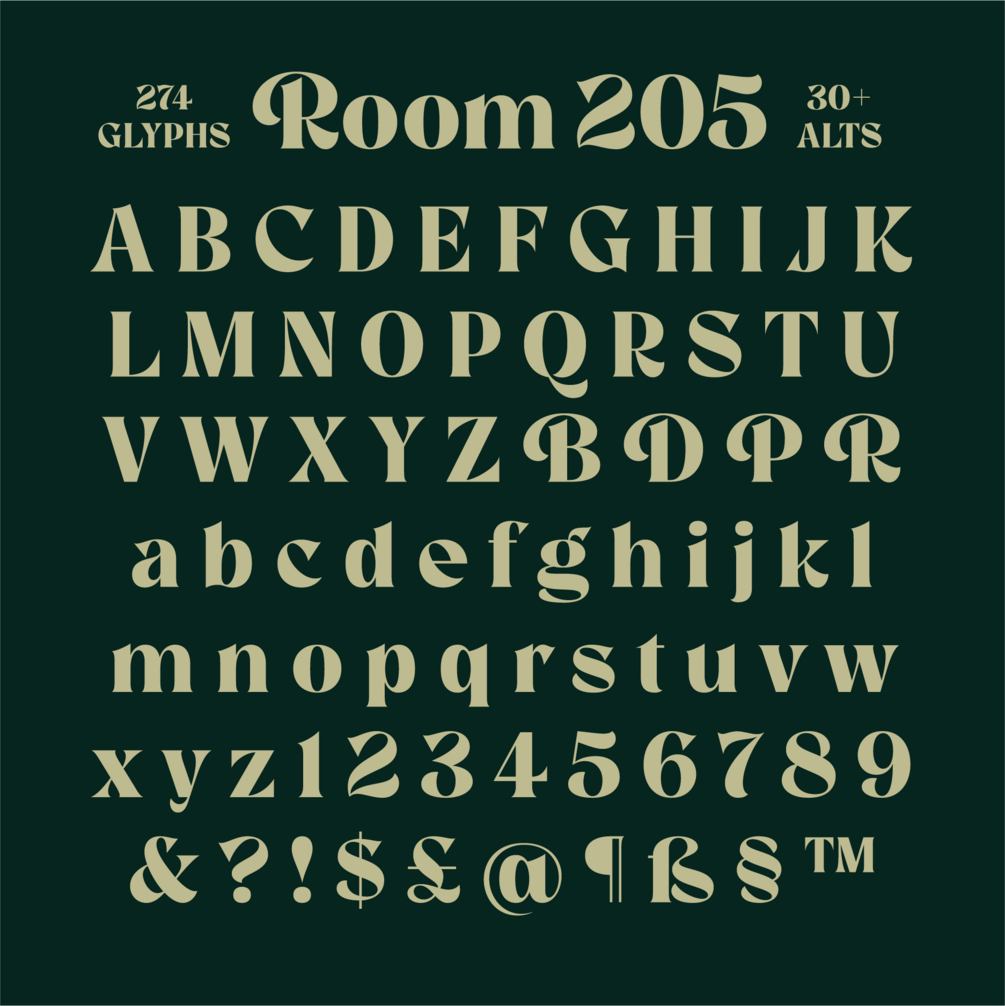
Room 205
Room 205 is a bold, expressive font in the neoclassical tradition. It has 274 glyphs, including more than 30 alternate characters and ligatures.